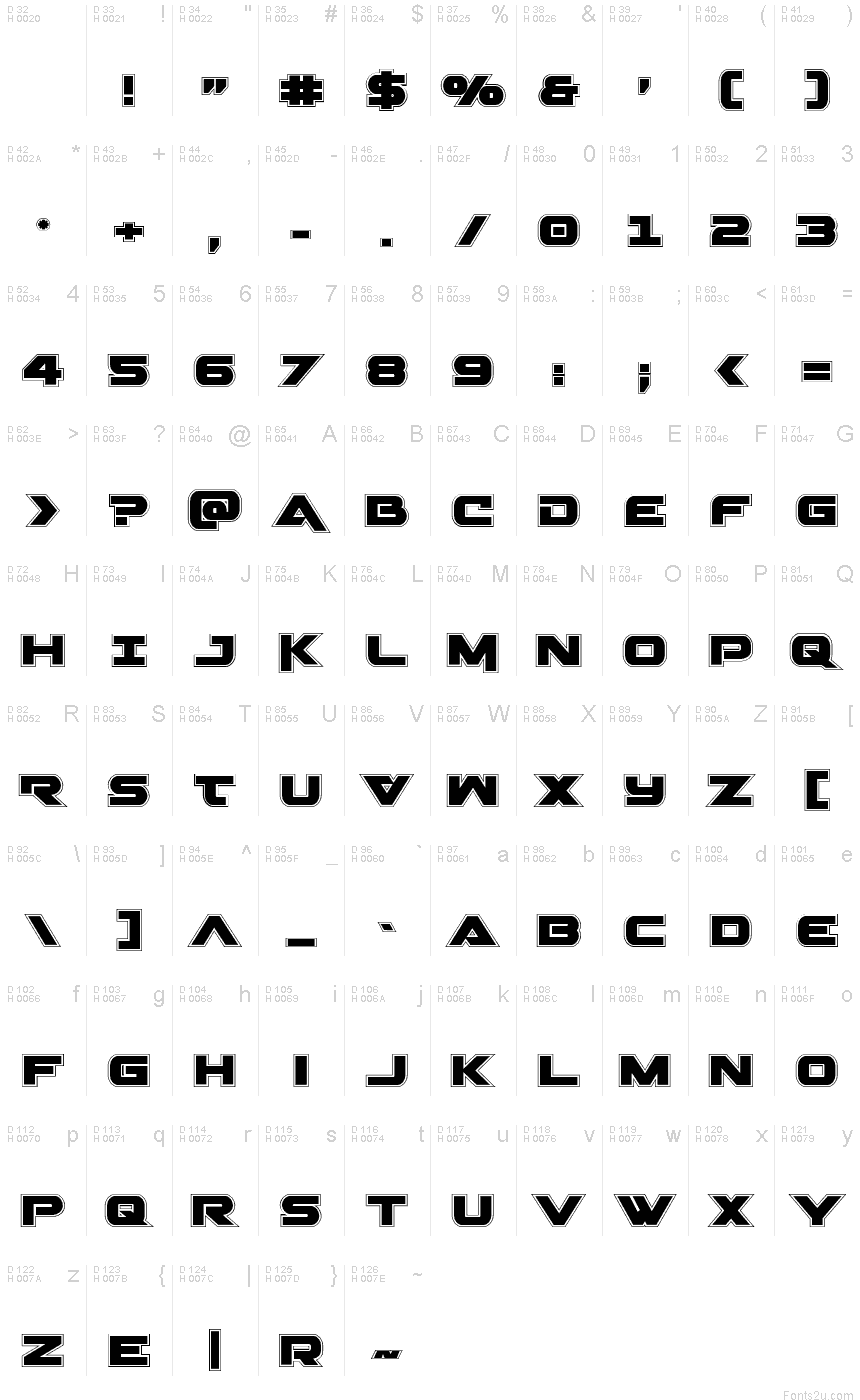
Gemina Academy by Daniel Zadorozny of Iconian Fonts is a free outlined display font with the broad, forceful build of athletic lettering. Deep angular cuts, clipped joins, and tightly drawn inner shapes give the capitals a sharper, more futuristic edge than a standard varsity face.
A sportswear label or esports brand could use its imposing geometry across team merchandise, event posters, and digital graphics. The open inset line adds a crisp technical detail to the dense forms. It is especially convincing for a logo that needs collegiate weight with a science-fiction slant.
Gemina Academy